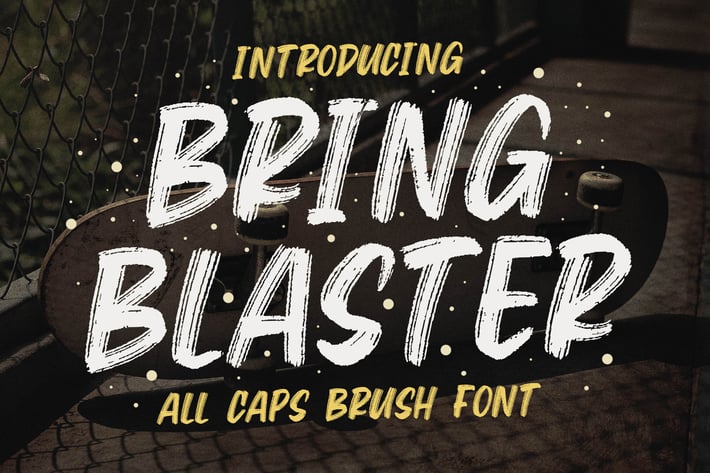
Bring Blaster - All Caps Brush Font
Introducing of our new product the name is Bring Blaster All Caps Brush Font. Bring Blaster inspired by brush sign calligraphy this font is a fun theme very good for, book cover, poster, t-shirt, quote, logotype and etc